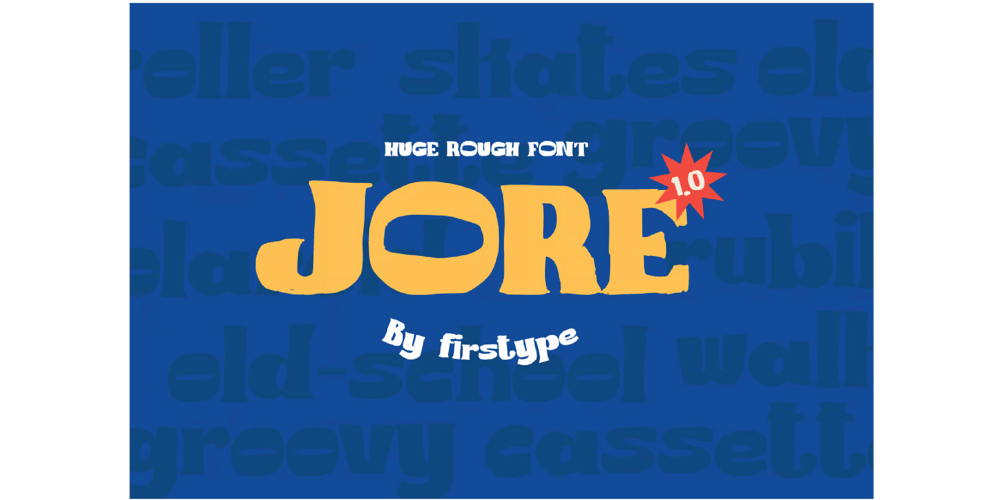
Jore Rough Display Font Font Family was designed by Adrian Syauqi and published by Firstype Studio. Jore Rough Display Font contains 3 styles and family package options. Introducing Jore, a bold and rugged display font that exudes raw power. Jore is the ultimate choice for those seeking a typeface that makes a statement in titles, offering a bold and rough design. It’s available in multiple licensing options to cater to various design needs.Raw Boldness:Jore is a typeface that doesn’t hold back. Its bold and rugged design is unapologetic and demands attention. When you need your titles to stand out and leave a lasting impression, Jore is your font of choice.Perfect for Striking Titles:Jore excels in titles, headers, and headlines. Whether it’s for a poster, branding, or any design that requires a bold and eye-catching title, this font ensures your message is seen.Embrace the Roughness:What sets Jore apart is its raw and rugged appeal. It adds an element of texture and toughness to your typography, making it suitable for projects that require a touch of bold authenticity.Multiple Licensing Options:We understand that different projects have different licensing requirements. Jore is available in various licensing options, including personal, commercial, and extended licenses. Choose the one that suits your specific project.Unleash Your Typography’s Impact:With Jore, you’re not just choosing a font; you’re unleashing the potential for your typography to convey boldness, rawness, and a commanding presence.Choose Your License:Explore our licensing options and select the one that aligns with your project’s needs. Whether you’re a designer, brand owner, or creative enthusiast, Jore has a license that fits your requirements.Elevate Your Designs with Jore – Where Raw Boldness Takes Center Stage.This description emphasizes the raw boldness and rugged appeal of the “Jore” display font, its suitability for striking titles, and the availability of multiple licensing options to cater to different users.